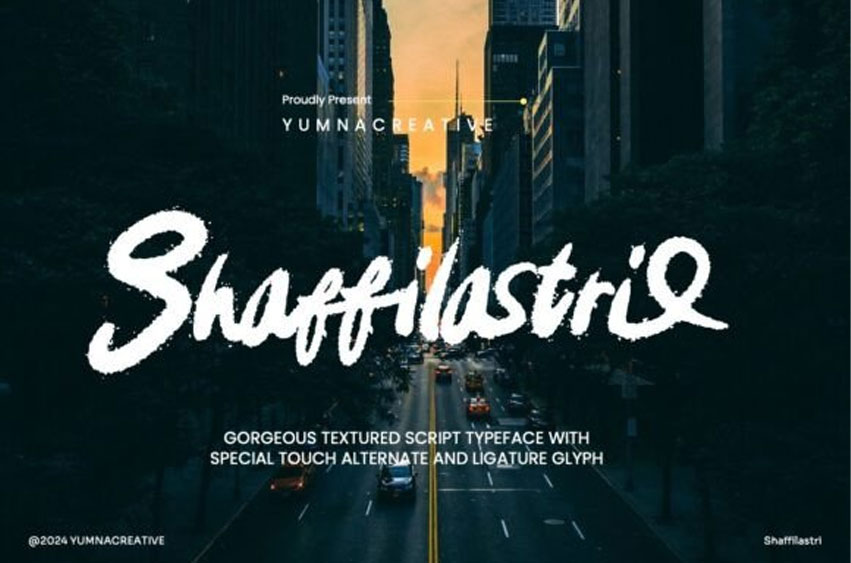
Shaffilastri Font Textured Script is a stylish, handwritten font with a textured, brush-like design. It’s perfect for creating unique and elegant designs like logos, invitations, posters, or social media graphics.
The font adds a personal and artistic touch to your projects.